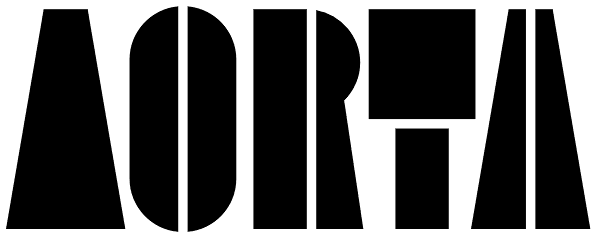
Aorta
Aorta was designed for independent subcultural zine. It have stencil in place of lower-case and digit stencil in place of old style digit. Aorta good for headlines, posters, editorial design... Aorta have condensed proportion and good in solid...